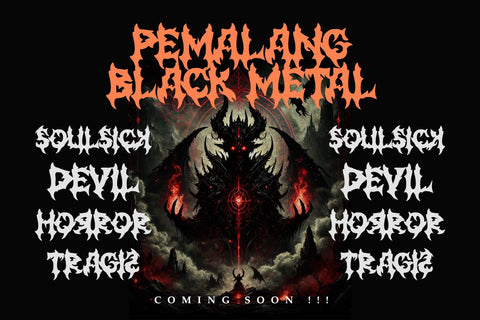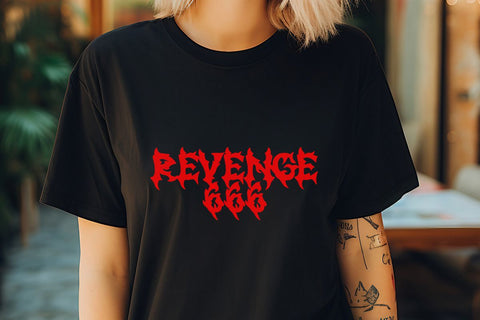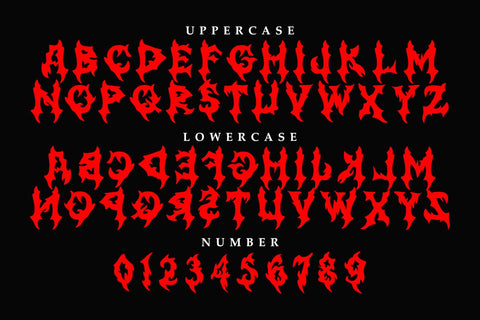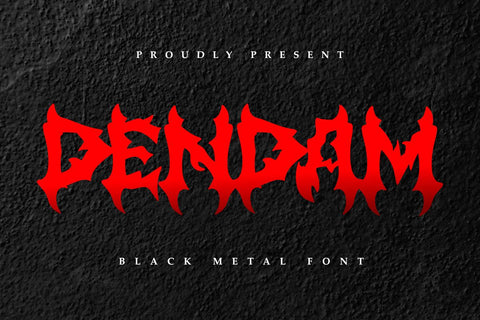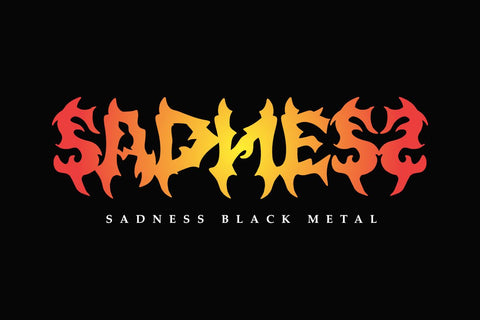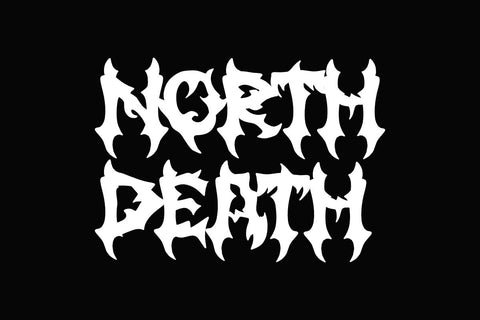
Dendam - Aggressive Black Metal font
Dendam is a fierce and aggressive black metal font with sharp, jagged edges, making it the perfect choice for band logos, album covers, posters, merchandise, tattoos, gothic apparel, horror-themed designs, Halloween decorations, and dark fantasy projects.